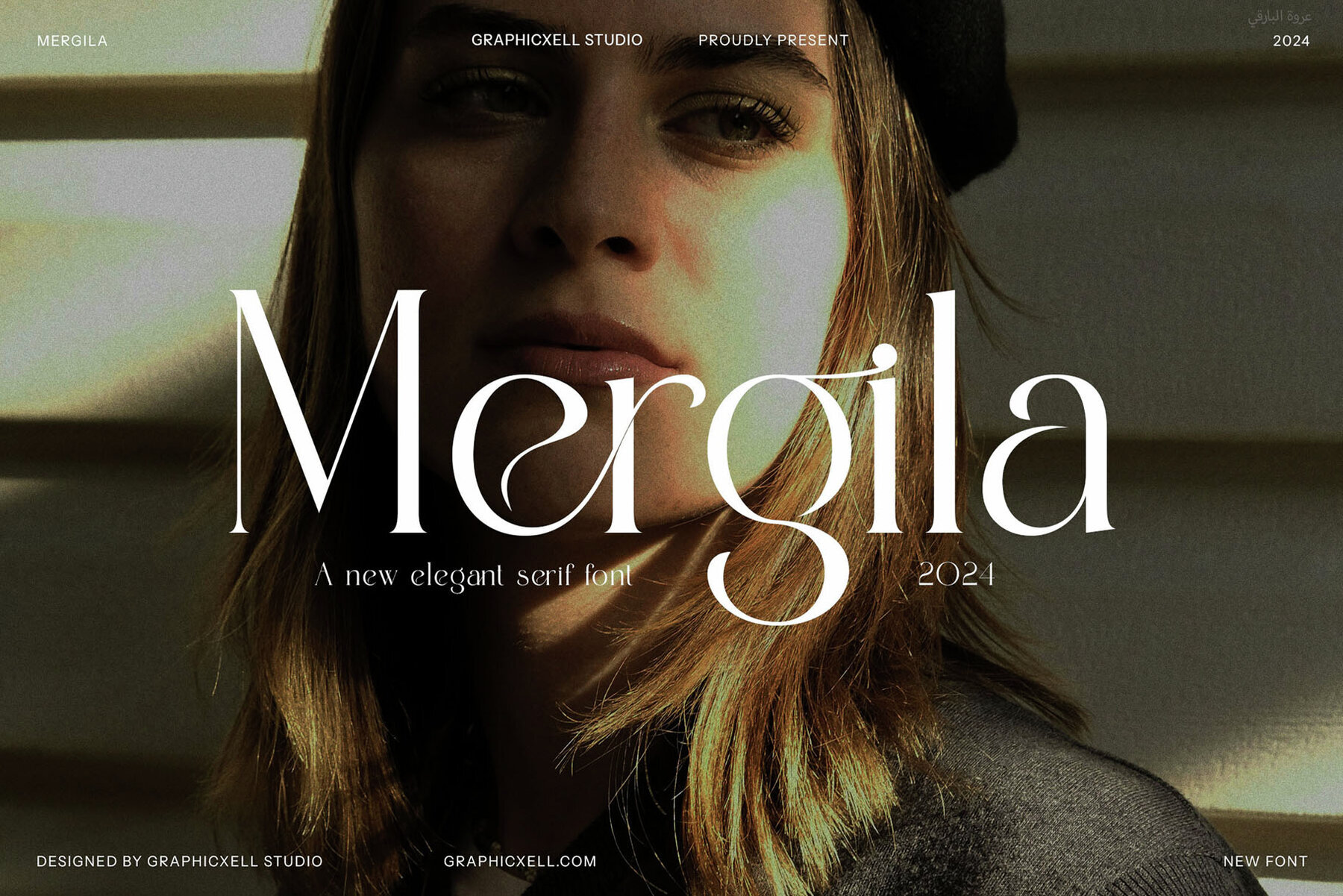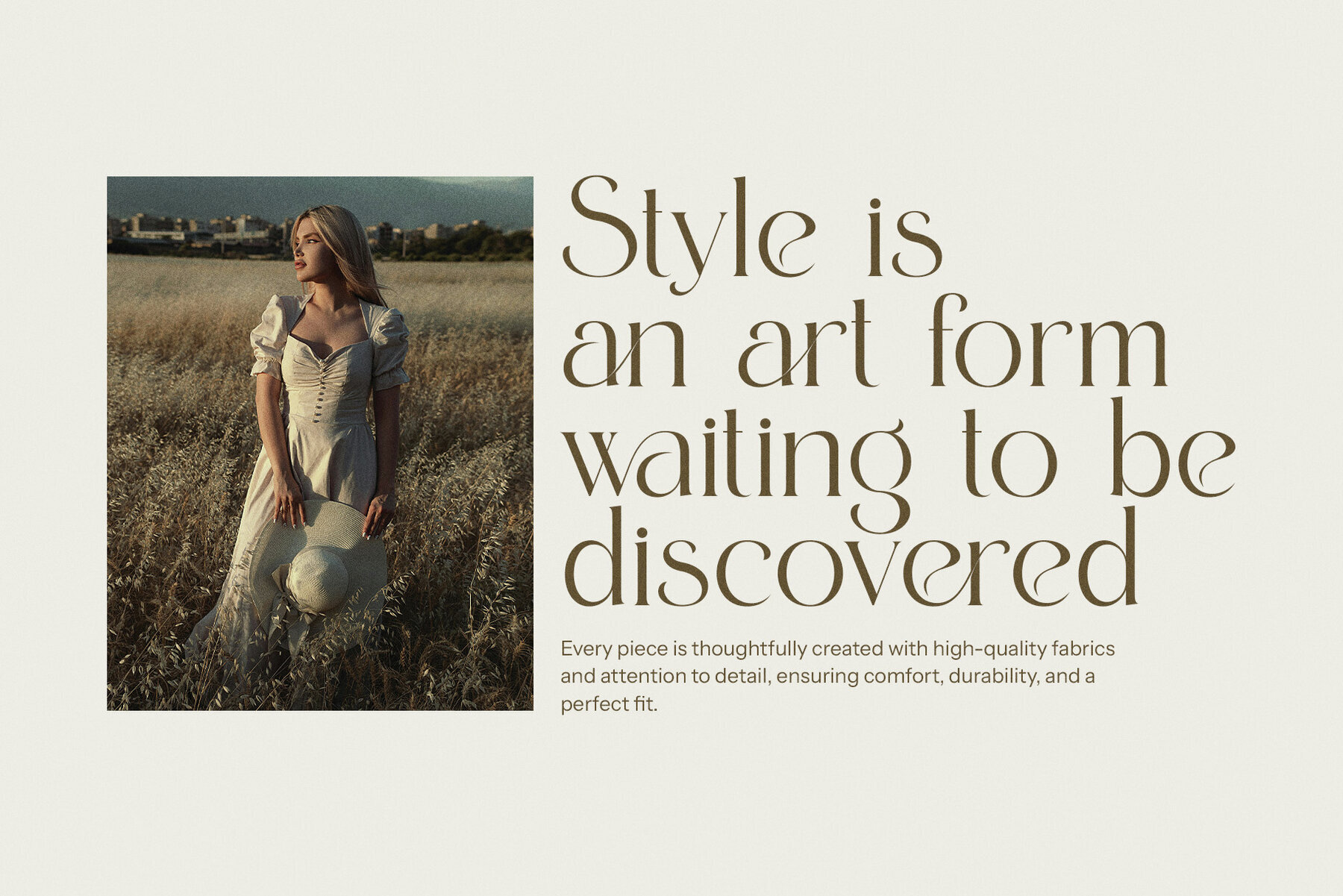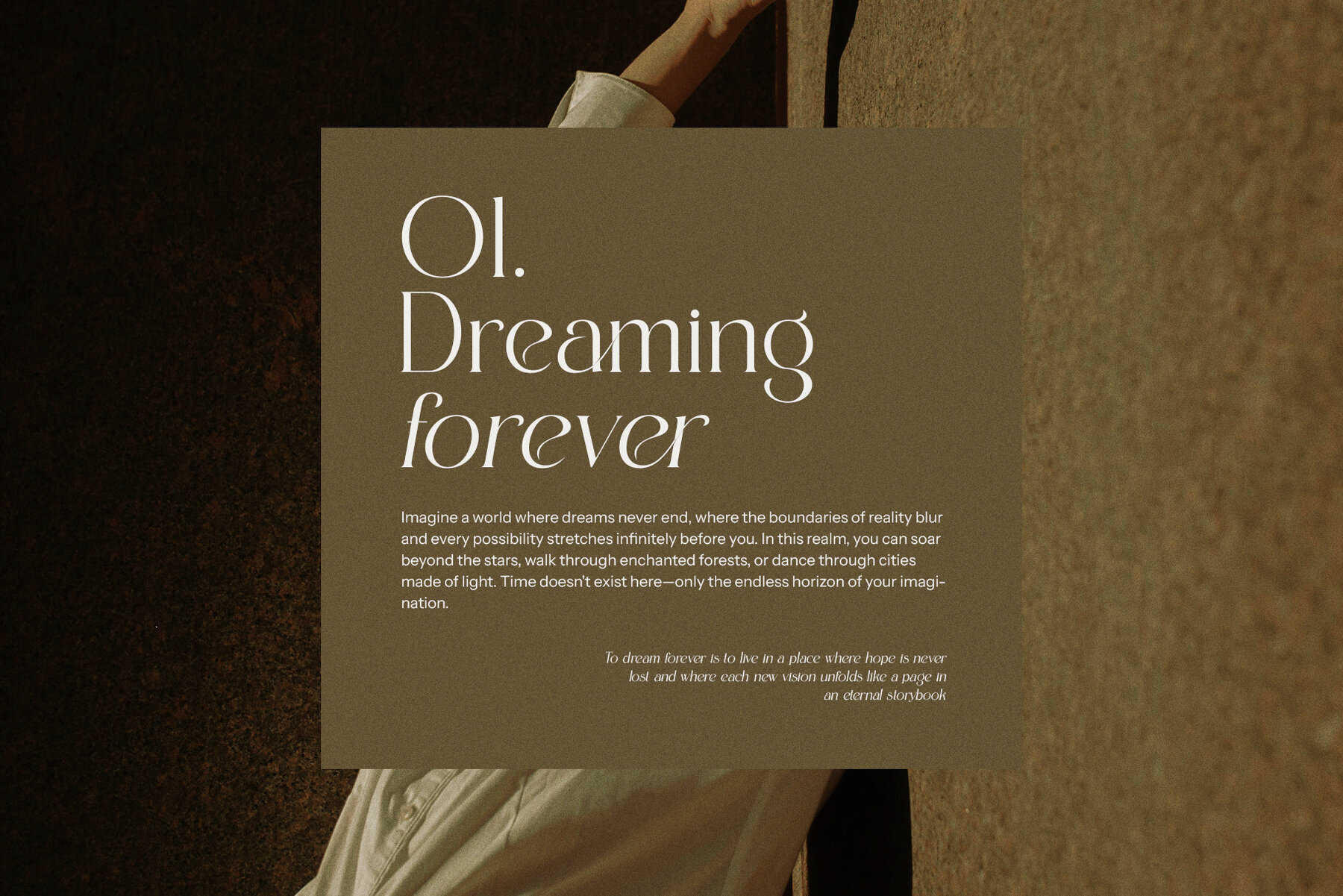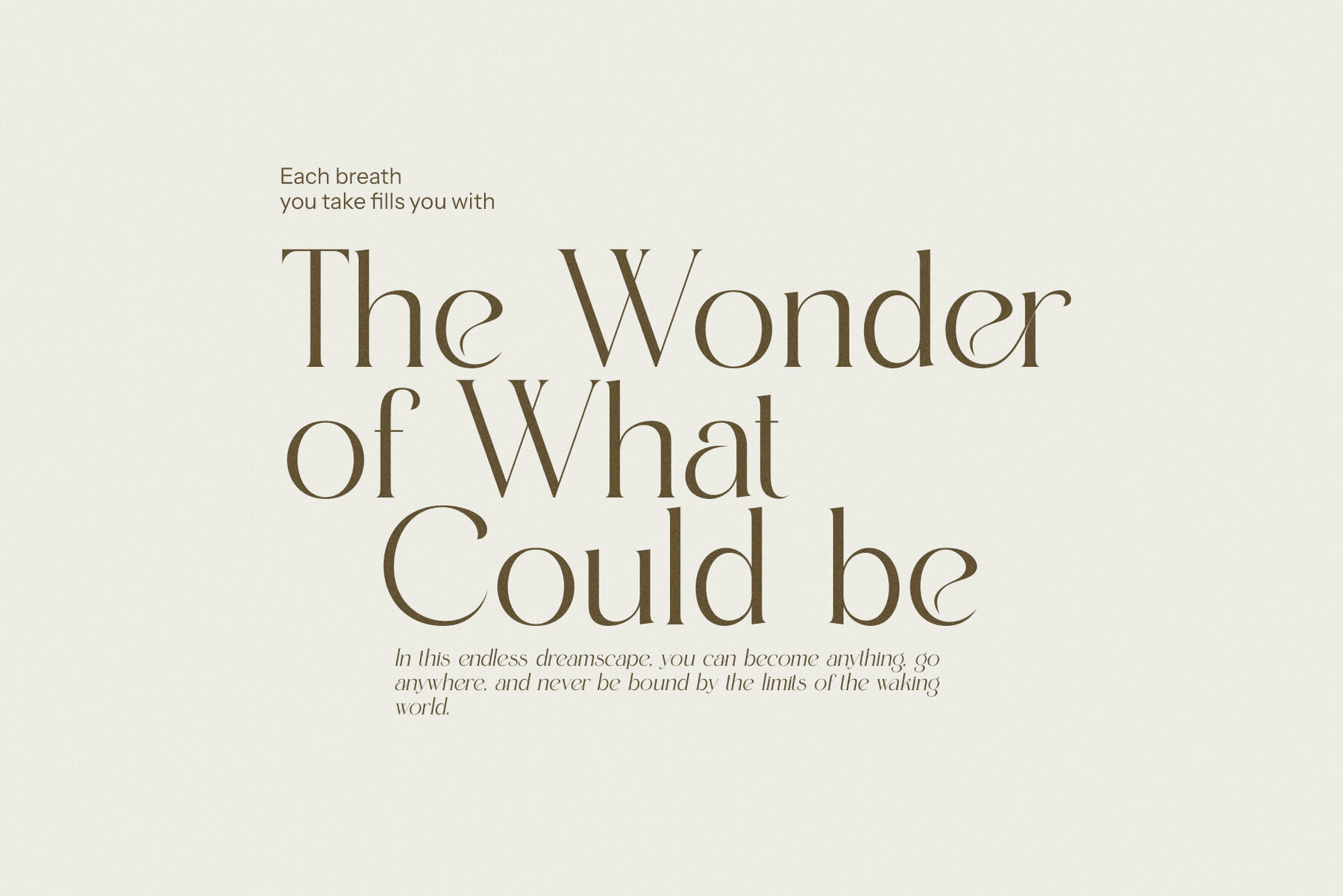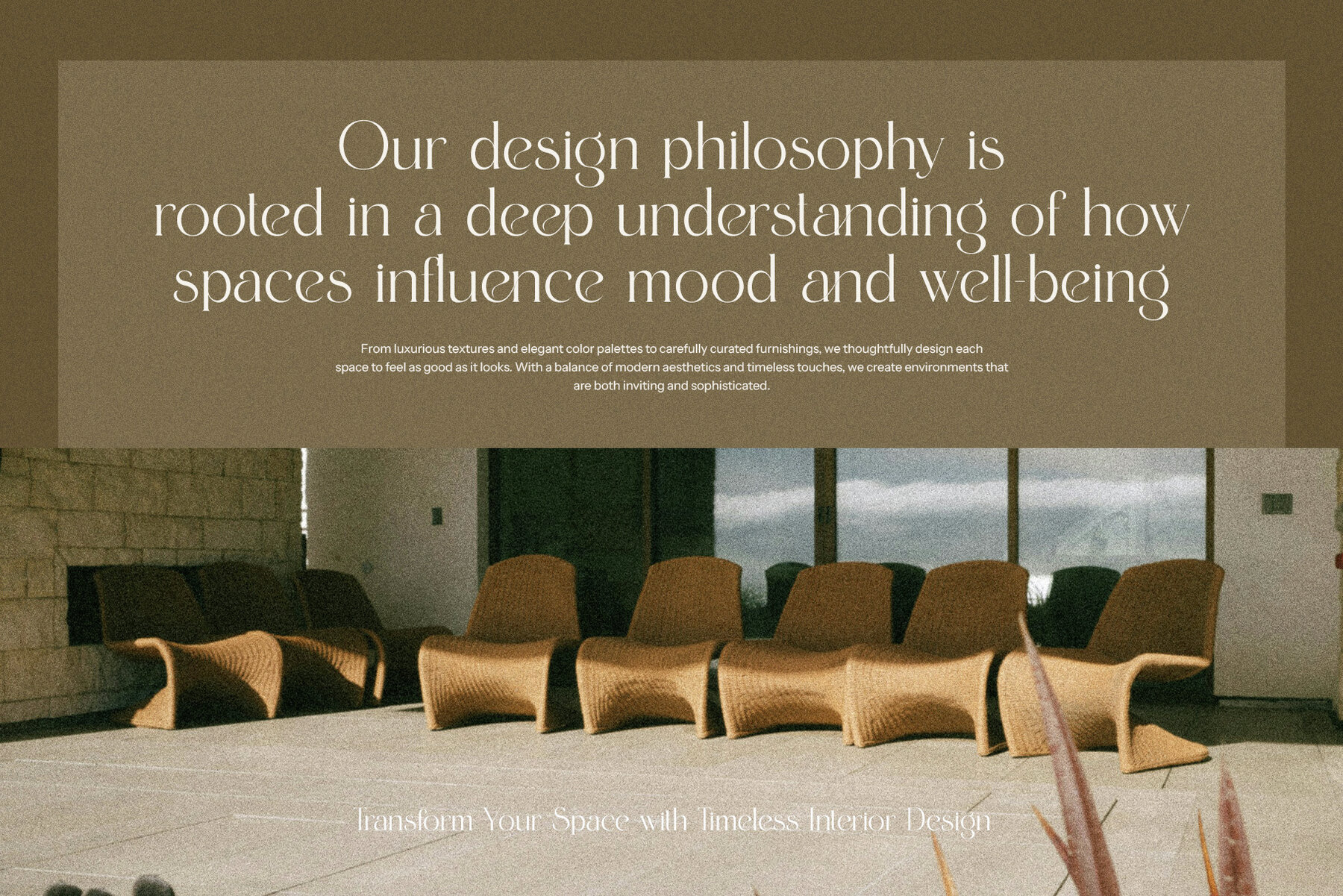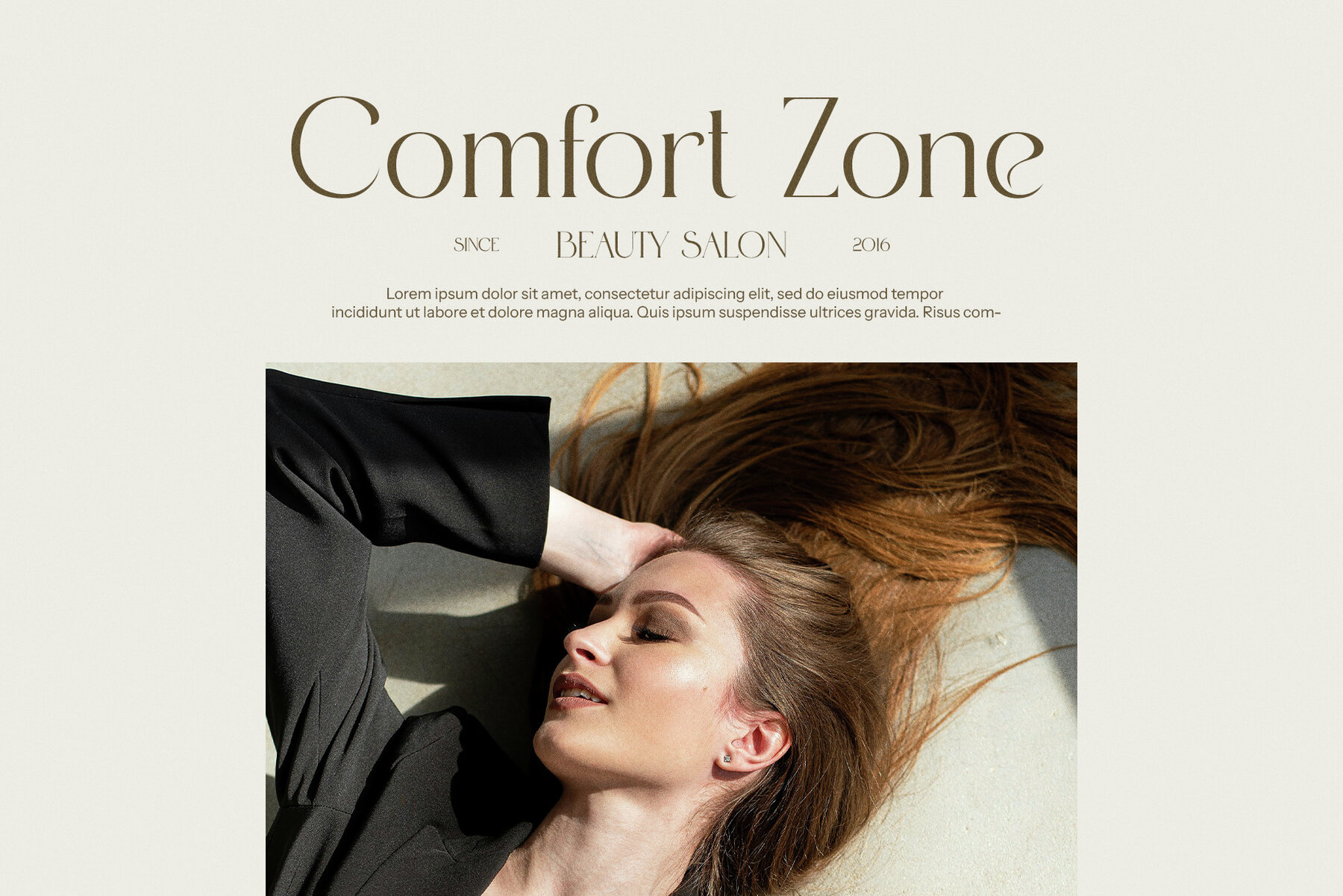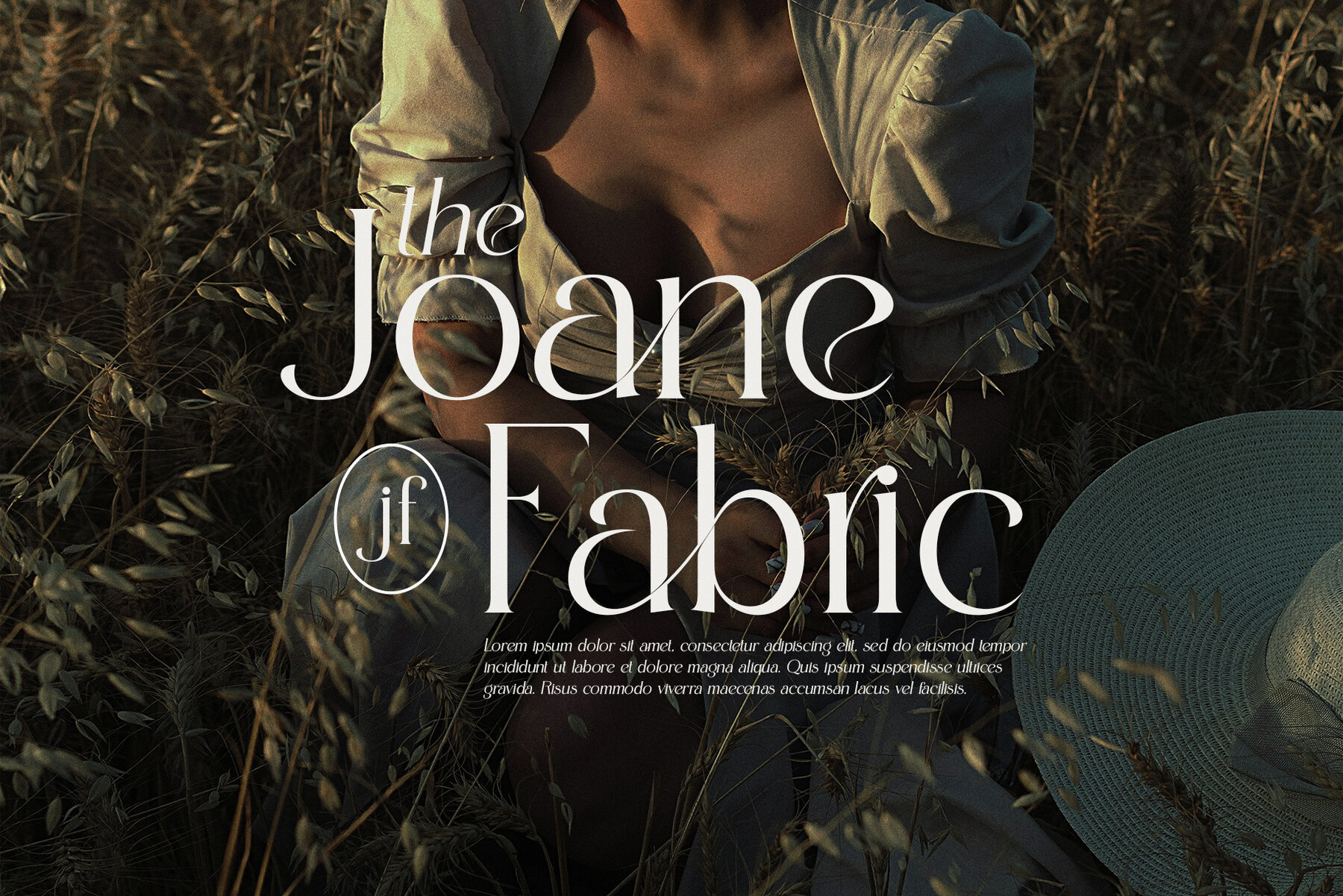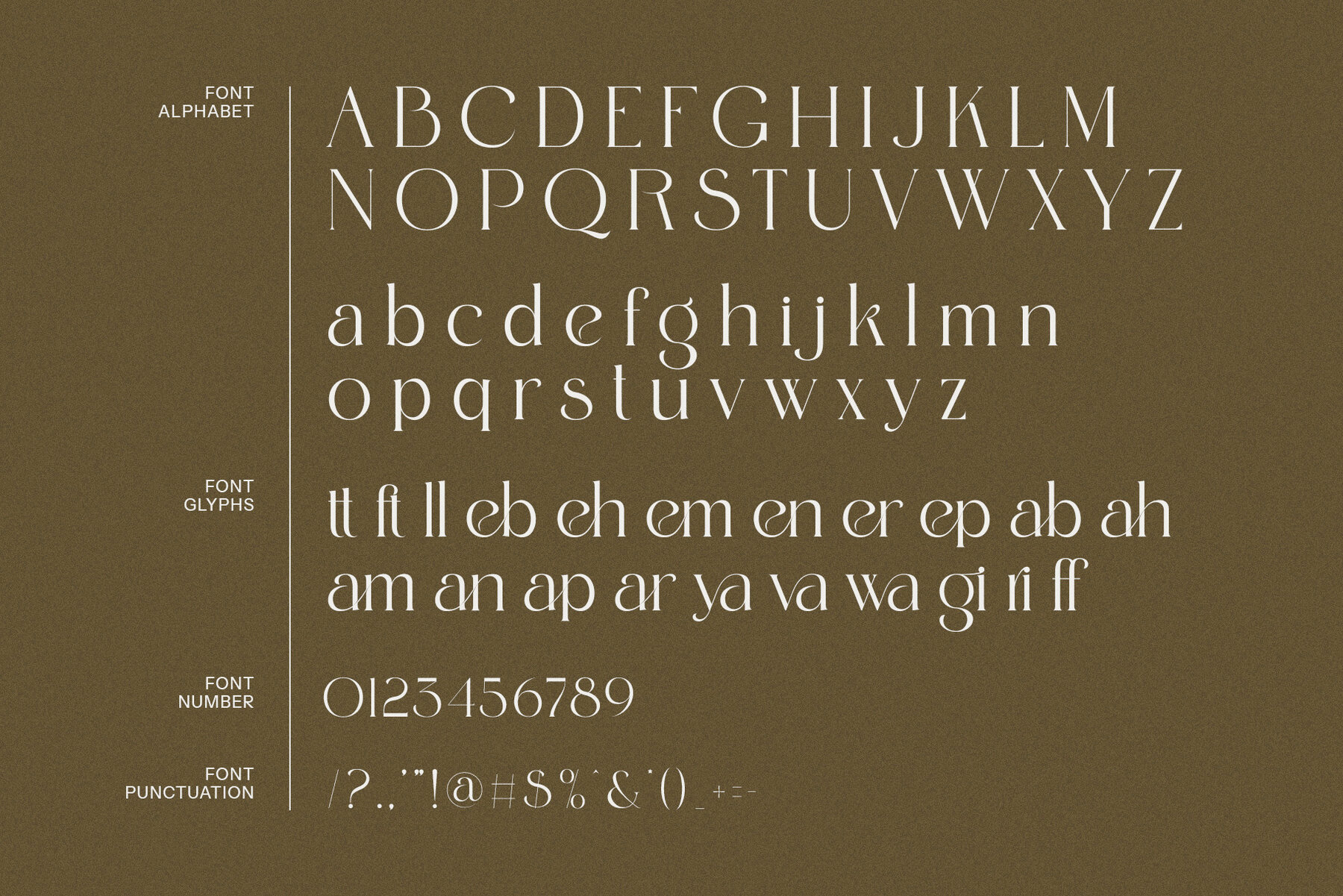
Mergila Font
Mergila
Mergila Elegant Serif is a sophisticated typeface by Graphicxell that harmoniously blends modern refinement with timeless elegance. Designed with precision, this font features graceful curves and sharp serifs, accentuated by uniquely crafted ligatures that add a distinctive and luxurious touch. With high-contrast strokes and well-balanced proportions, Mergila makes a powerful yet elegant statement, perfect for luxury branding, stylish logos, editorial layouts, and premium product packaging. Its beautifully designed alternates and ligatures facilitate effortless customization and creativity, achieving a polished and professional aesthetic.
Mergila's versatility makes it suitable for various applications, from boutique logos and fashion branding to upscale advertisements, website headers, and elegant invitations. Its refined yet bold letterforms ensure strong readability while exuding an air of exclusivity, making it an excellent choice for industries such as beauty, hospitality, and fine dining. With its ability to adapt to both contemporary minimalism and classic opulence, Mergila enhances any composition with its timeless charm. Whether applied to bold headlines or delicate typography, this typeface brings sophistication and character to every project.